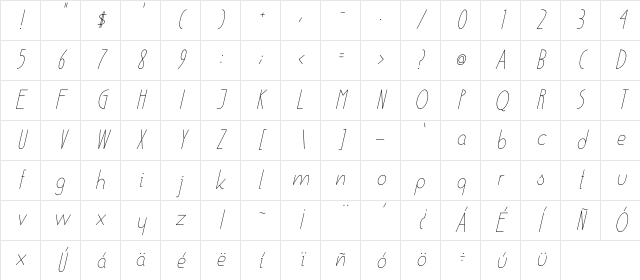
Ensure is a composed and adaptable typeface that performs quietly and consistently across a wide range of design contexts. The slanted form adds forward momentum and visual energy.
Pro Tip: Use Ensure for emphasis, pull quotes, and subheadings where its slanted energy can add rhythm to the layout.